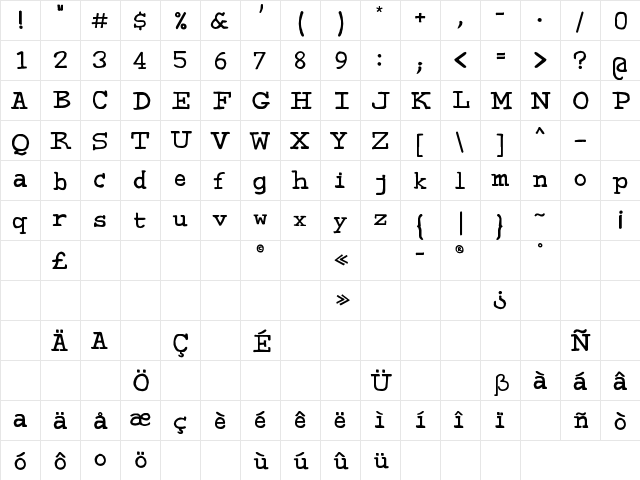
Sweeep Regular
| Designer | sweeep / daaams |
Design Context for Sweeep Typeface
Sweeep is a composed and adaptable typeface that performs quietly and consistently across a wide range of design contexts.